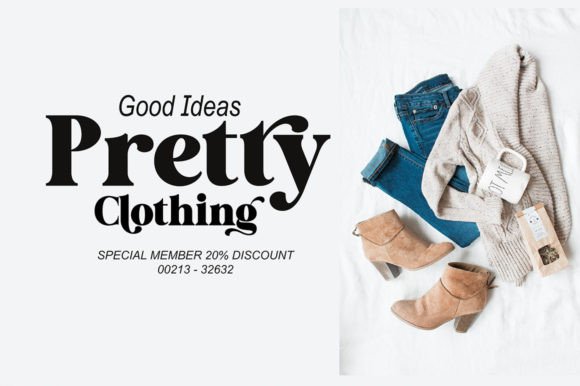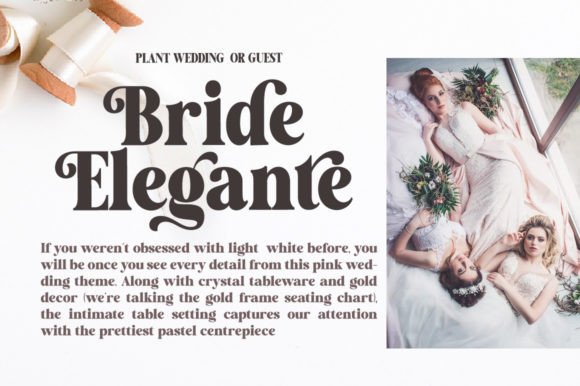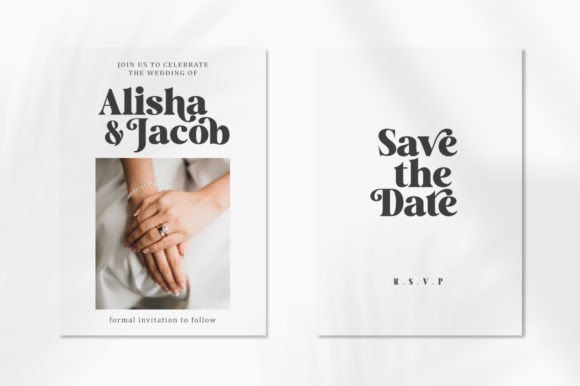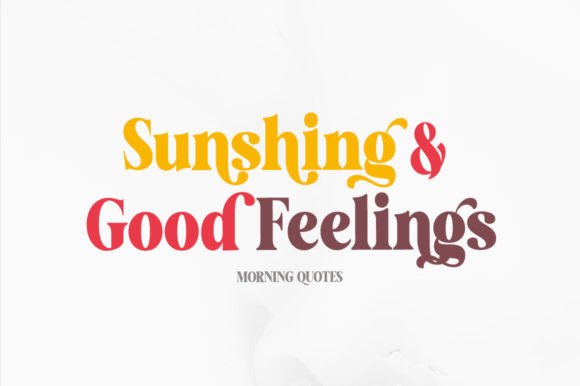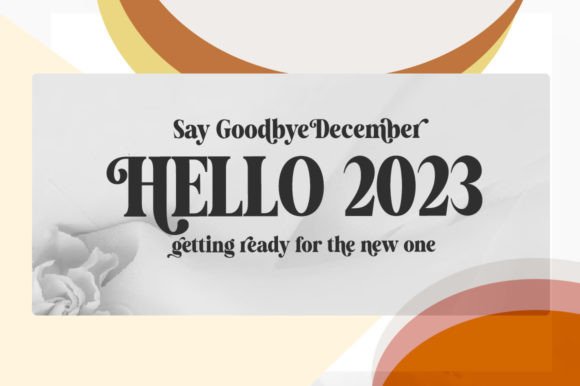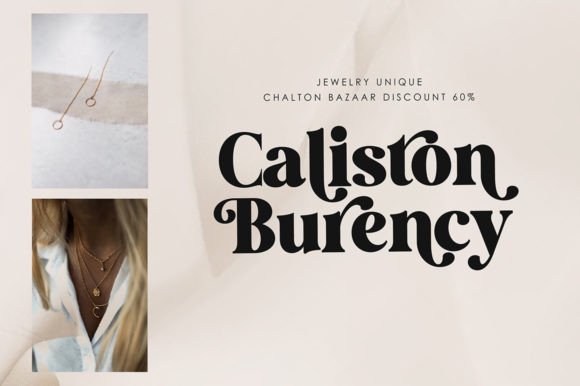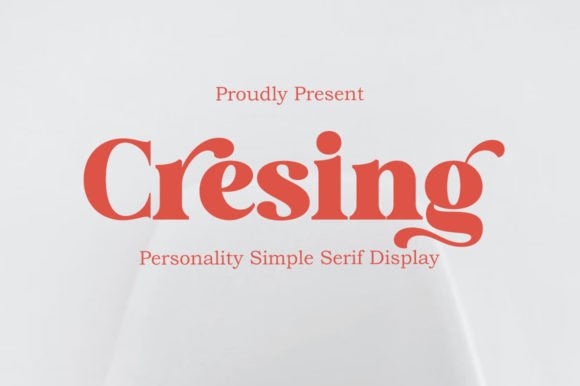
Cresing Font: Elevate Your Designs with a Modern Serif Style
In the world of typography, fonts play a crucial role in conveying messages, evoking emotions, and creating visual identities. For designers, crafters, and creative enthusiasts, finding the perfect font can be a daunting task. However, if you’re looking for a versatile and modern serif font that can elevate your designs, look no further than Cresing Font. In this article, we’ll explore the features, benefits, and uses of Cresing Font, and why it’s becoming a favorite among designers and crafters.
What is Cresing Font?
Cresing Font is a modern serif font designed to provide a fresh and elegant look to various design projects. Its unique features and versatility make it an excellent choice for a wide range of applications, from branding and poster design to t-shirts, invitations, and editorial designs. With its clean lines, classic serifs, and stylish flair, Cresing Font is perfect for designers who want to add a touch of sophistication to their work.
Key Features of Cresing Font
Cresing Font comes with a range of features that make it an attractive option for designers. Some of its key features include:
- Modern Serif Style: Cresing Font boasts a modern serif style that adds a touch of elegance and sophistication to any design.
- Multiple Styles: The font comes in many styles, including fasteners, allowing designers to experiment with different looks and feels.
- High Versatility: Cresing Font is suitable for a wide range of design projects, from branding and advertising to editorial designs and craft projects.
- Easy to Read: The font is designed to be easy to read, making it perfect for body text, headings, and titles.
Uses of Cresing Font
Cresing Font is an incredibly versatile font that can be used in various design projects. Here are some of the ways you can use Cresing Font:
- Branding: Use Cresing Font to create a professional and elegant brand identity that reflects your values and personality.
- Poster Design: Create eye-catching posters with Cresing Font, perfect for advertising, promoting events, or showcasing your work.
- T-Shirts and Merchandise: Add a stylish touch to your t-shirts, hoodies, and other merchandise with Cresing Font.
- Invitations: Design beautiful invitations for special occasions, such as weddings, birthdays, and baby showers, with Cresing Font.
- Editorial Designs: Use Cresing Font in your editorial designs, such as magazines, newspapers, and blogs, to add a touch of sophistication and elegance.
- Designs for Kids: Create fun and engaging designs for kids, such as children’s books, activity sheets, and educational materials, with Cresing Font.
Benefits of Using Cresing Font
Cresing Font offers several benefits to designers and crafters. Some of the advantages of using Cresing Font include:
- Unique and Modern Look: Cresing Font provides a fresh and modern look that can help your designs stand out.
- Time-Saving: With its versatility and multiple styles, Cresing Font can save you time and effort in finding the perfect font for your project.
- High Quality: Cresing Font is designed to provide high-quality output, ensuring that your designs look professional and polished.
In conclusion, Cresing Font is an excellent choice for designers and crafters looking for a modern serif font that can elevate their designs. With its versatile styles, ease of use, and high-quality output, Cresing Font is perfect for a wide range of design projects. Whether you’re working on branding, poster design, t-shirts, invitations, or editorial designs, Cresing Font is sure to provide a fresh and elegant look that will make your designs stand out.